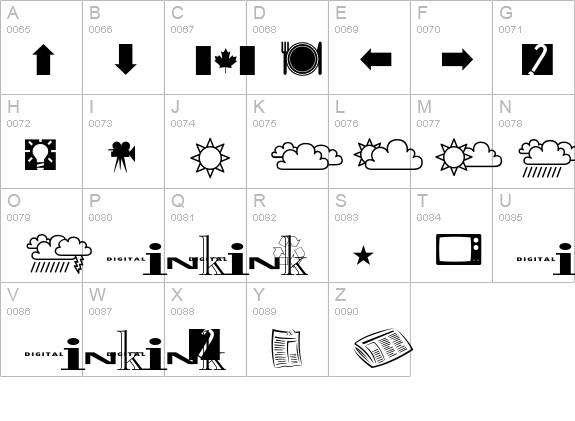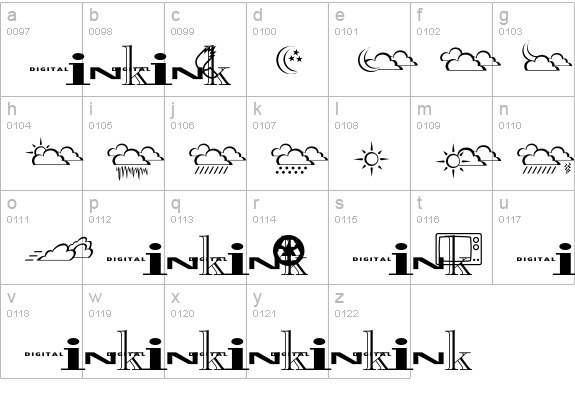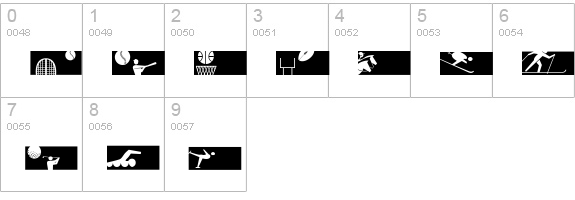
InkFontDingbats Font Details
InkFontDingbats is a charming and whimsical font that is sure to add a touch of creativity to any design project. This font features a collection of unique and intricate doodles and symbols, perfect for adding a playful and artistic flair to invitations, posters, logos, and more. With its hand-drawn style and intricate details, InkFontDingbats brings a sense of originality and personality to any text it is applied to. Whether you're looking to add a touch of whimsy to a children's book or a touch of elegance to a wedding invitation, this font has got you covered. And the best part? InkFontDingbats is available for free download at FontsMarket.com. That's right, you can easily access and enjoy this fantastic font without spending a single penny. So, why wait? Get your hands on this delightful font and let your creativity run wild.